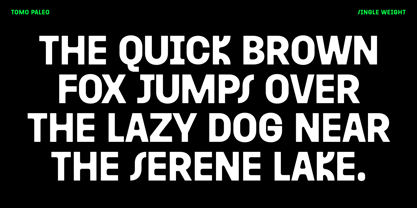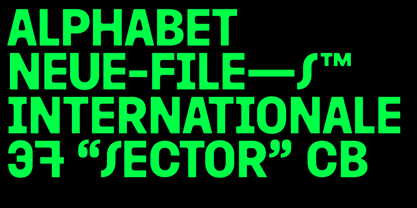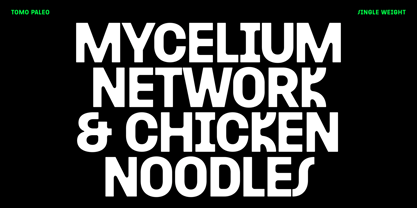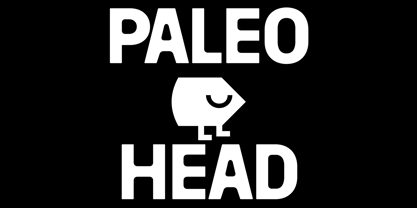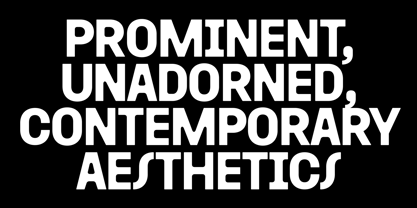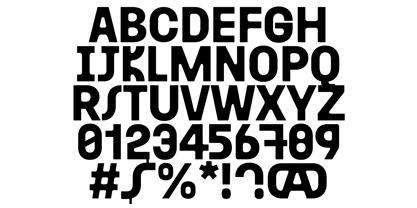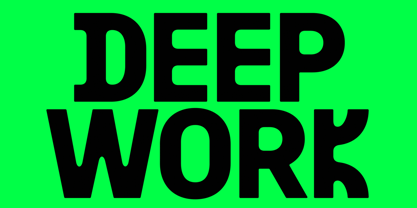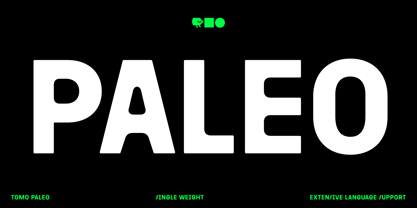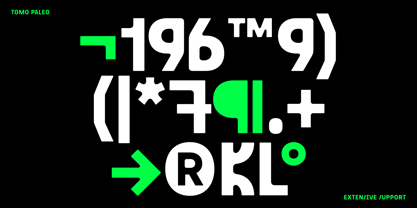
Paleo
Paleo is a bold, modern sans-serif typeface with a strong presence. Its characters are characterized by uniform stroke width, giving it a clean and contemporary look. The letters are geometrically constructed, with a mix of rounded and angular terminals which provide a balanced and harmonious appearance.
Paleo conveys solidity and readability, making it suitable for both display and body text in a variety of applications where clarity and modernity are desired.
-- Uppercase